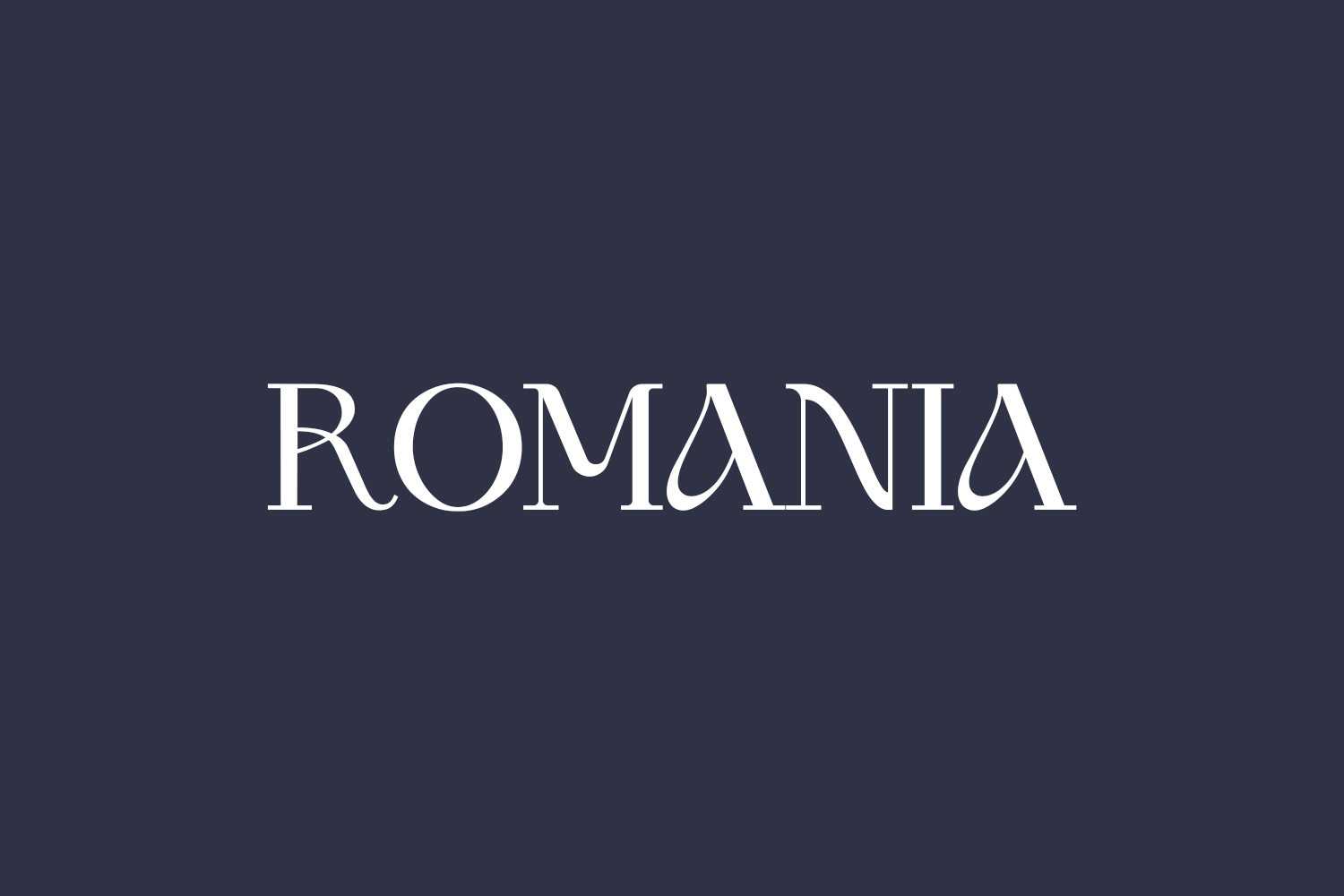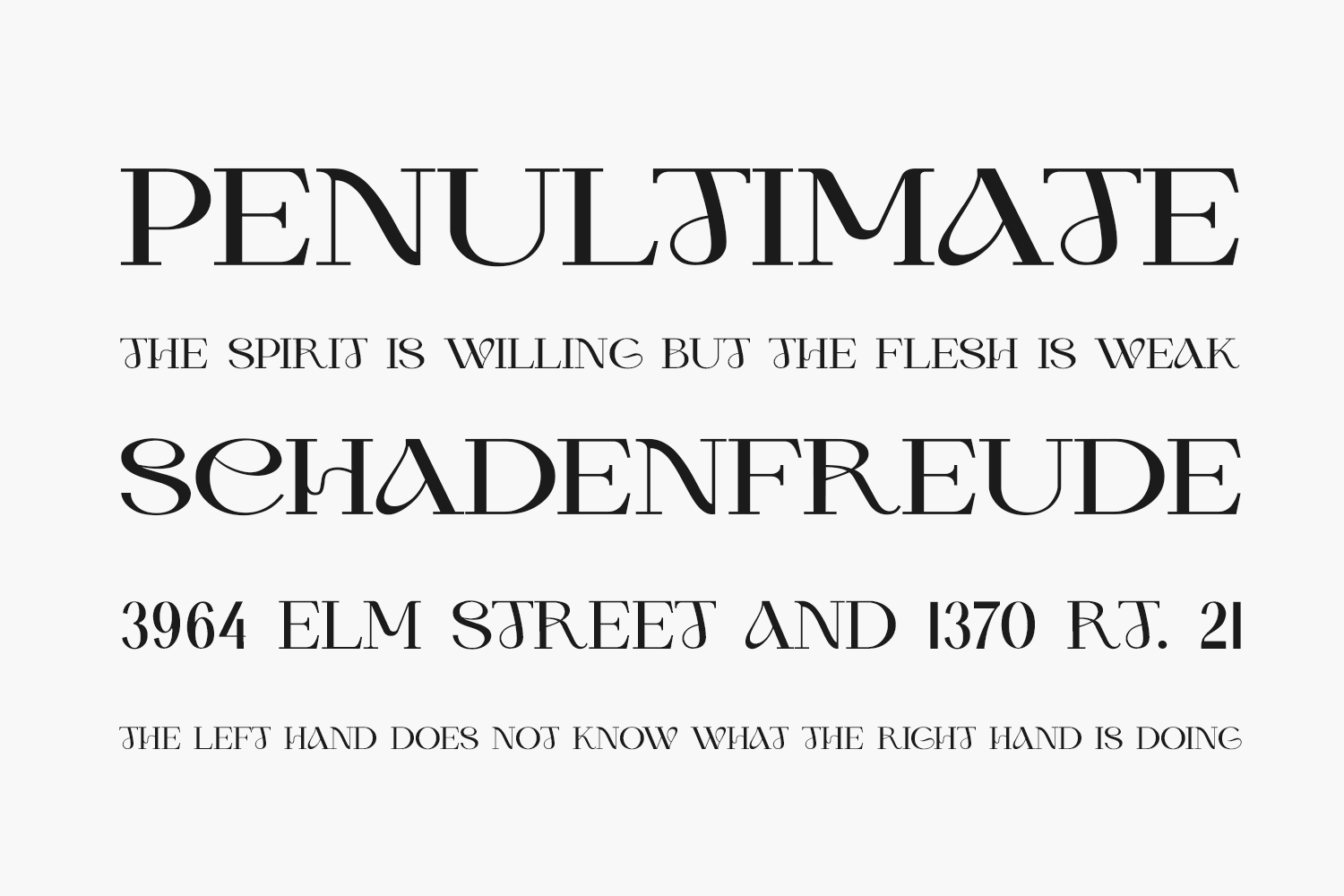
Romania – Free Elegant Serif Text Font for Editorial & Branding
Romania is a refined serif text font designed by UI Creative, offering a graceful balance of geometric structure and organic curves. Ideal for editorial use, stationery, wedding invitations, logos, and fashion branding, this elegant typeface exudes sophistication and versatility. The free TTF version is available for personal use; commercial licensing can be acquired directly from the designer. Elevate your design projects with this stylish serif font that combines timeless charm with modern flair.
Why Choose Romania?
- Elegant Serif Design: Combines geometric formality with subtle curves for a polished look.
- Versatile Use Cases: Great for headlines, stationery, logos, and packaging in fashion and editorial projects.
Where to Use Romania?
- Editorial Headers & Magazines: Adds sophistication to titles and pull-quotes.
- Wedding & Event Invitations: Perfect for elegant invitations, menus, and signage.
- Logos & Branding: Ideal for boutique, fashion, and stationery brand identities.
- Social Media Graphics: Stylish for Instagram posts, Pinterest boards, and blog visuals.
- Product Packaging: Works beautifully on labels, tags, and upscale merchandise.
Design Tips with Romania
Use Romania in large sizes (18 pt+) to highlight its serif details. Pair it with a clean sans-serif like Chocolates or Modern Mono for contrast and readability. Soft pastel or monochrome palettes enhance its timeless elegance. Let generous line spacing emphasize its refined proportions.